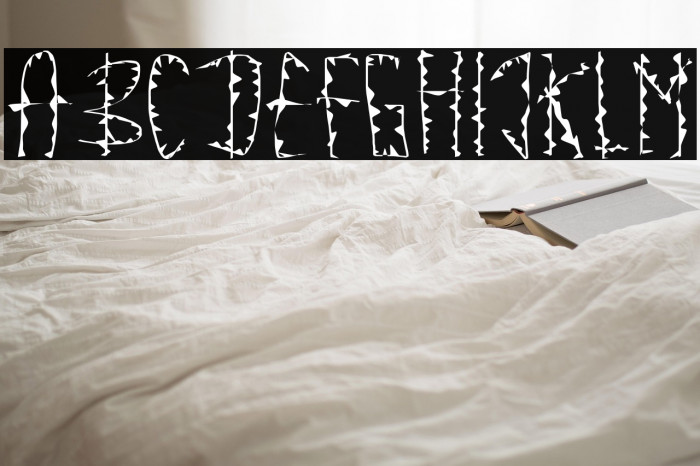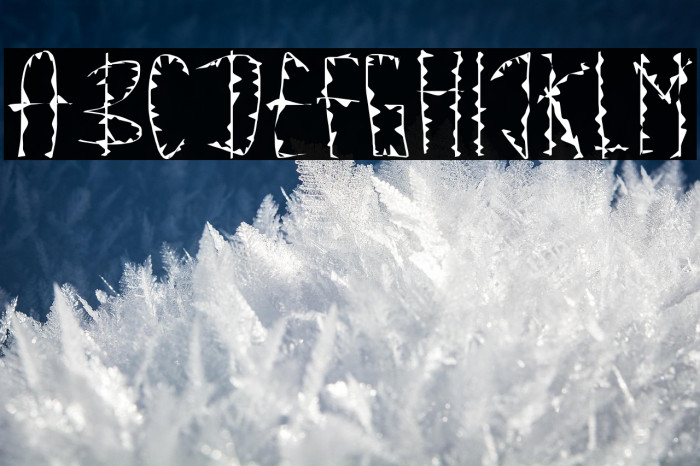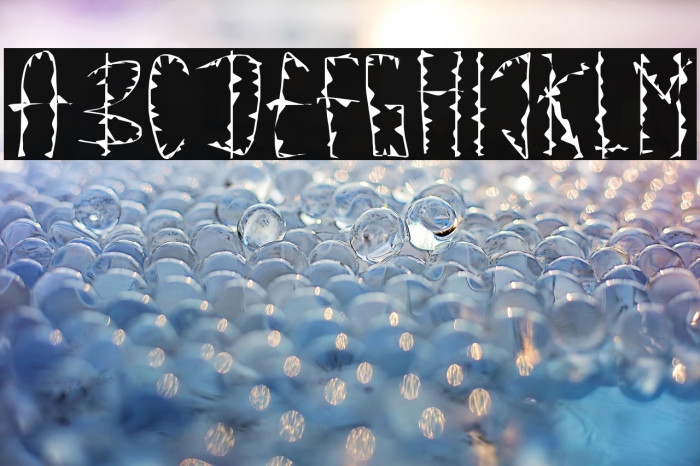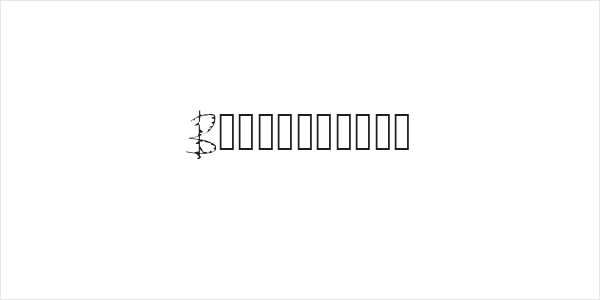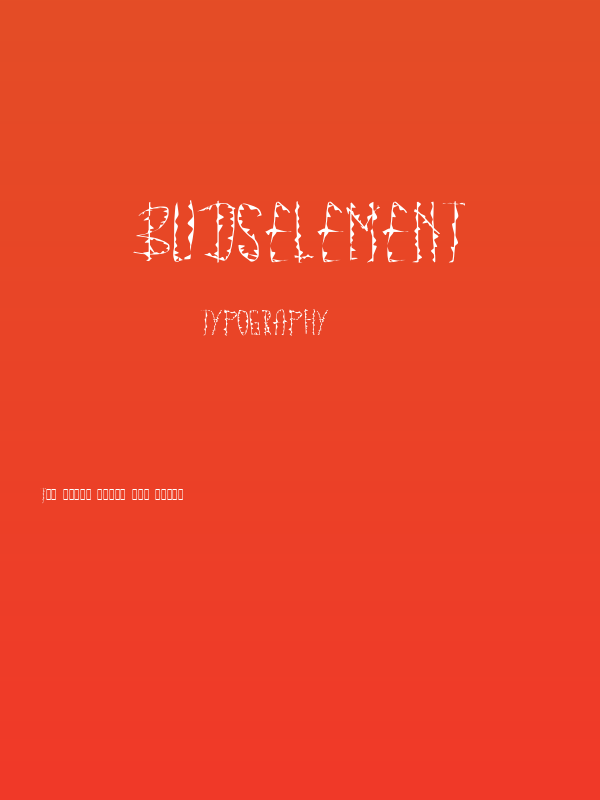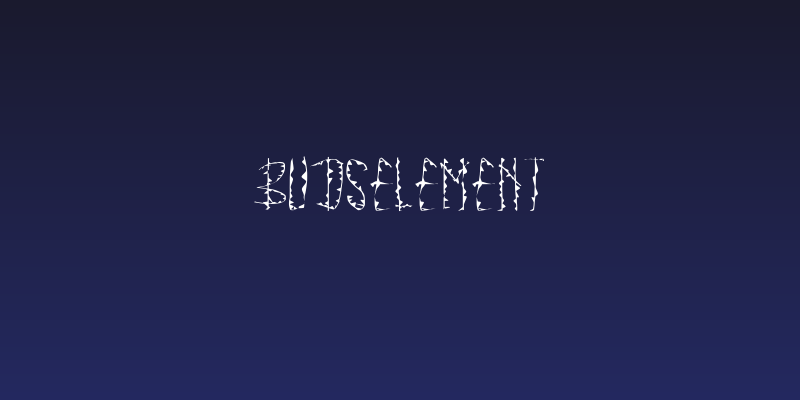
Budselement Font
Budselement Description
This font features a unique and edgy design, characterized by sharp, thorn-like elements that protrude from each letter. The style is reminiscent of barbed wire or jagged edges, giving it a rebellious and bold appearance. The letters are uppercase, with a consistent height and width, creating a uniform look despite the irregularities in the detailing. The font's distinctiveness makes it stand out, ideal for projects that require a strong visual impact. Its decorative nature suggests it is best suited for headlines or titles rather than body text, where readability might be compromised. The overall aesthetic is modern and daring, appealing to audiences looking for something unconventional and striking.
| Overall Style | Modern, Edgy |
| Proposed Projects | Album covers, event posters, branding for edgy or alternative products, fashion labels. |